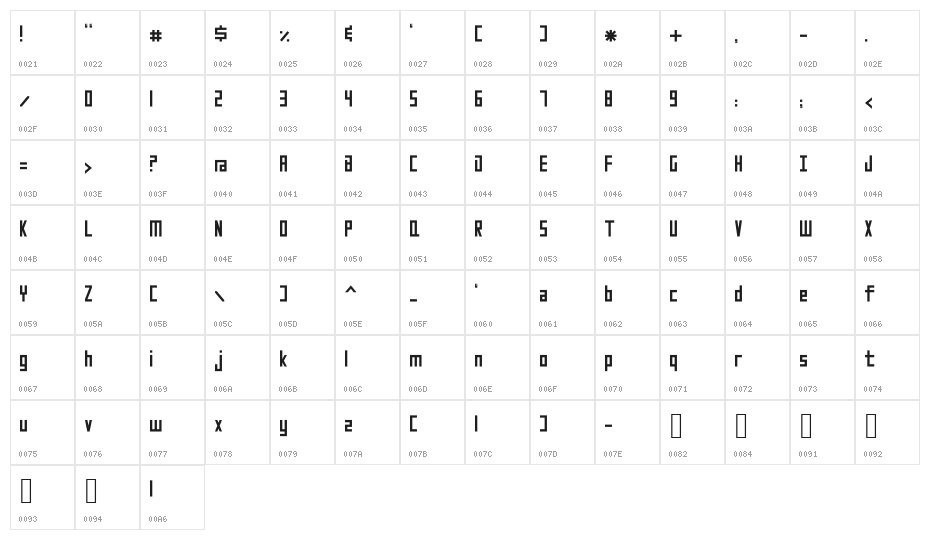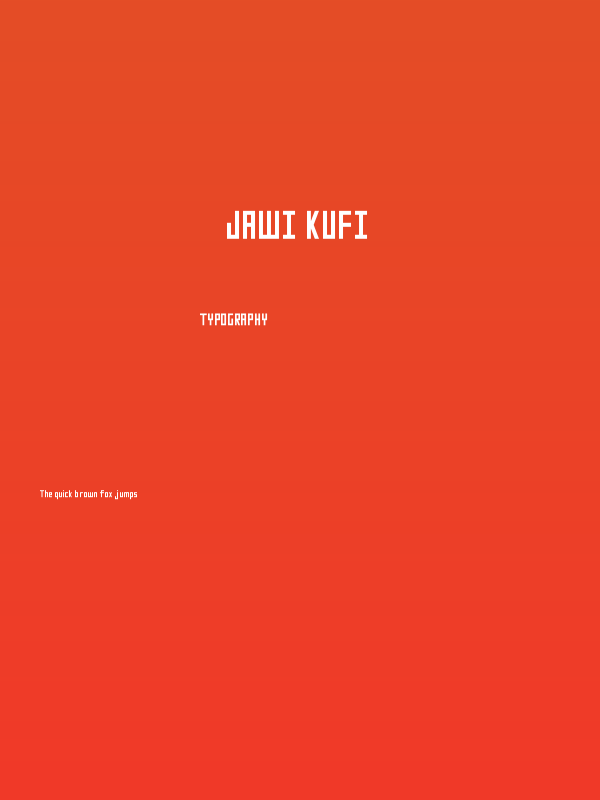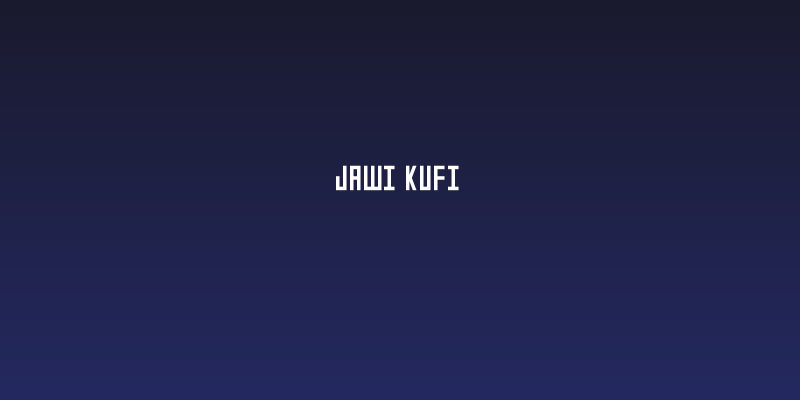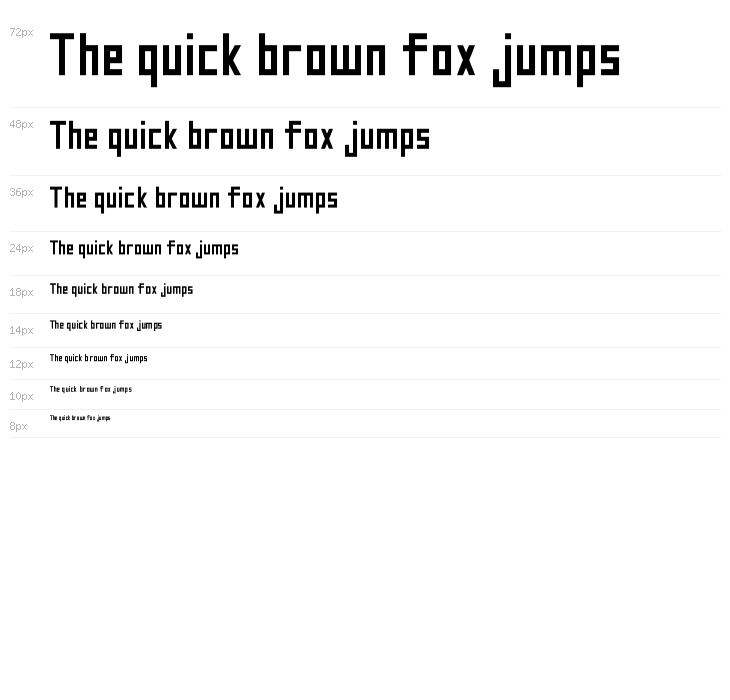
Jawi Kufi Font
Jawi Kufi Description
This font features a geometric and structured design, characterized by its bold, block-like appearance. The uppercase and lowercase letters maintain a consistent height, creating a uniform look. The characters are angular with sharp edges, giving a modern and futuristic feel. The numerals and special characters follow the same design principles, ensuring cohesion across all glyphs. The overall aesthetic is clean and minimalistic, making it suitable for various design applications.
| Proposed Projects | Ideal for branding, posters, digital interfaces, and any project requiring a modern and bold typeface. |